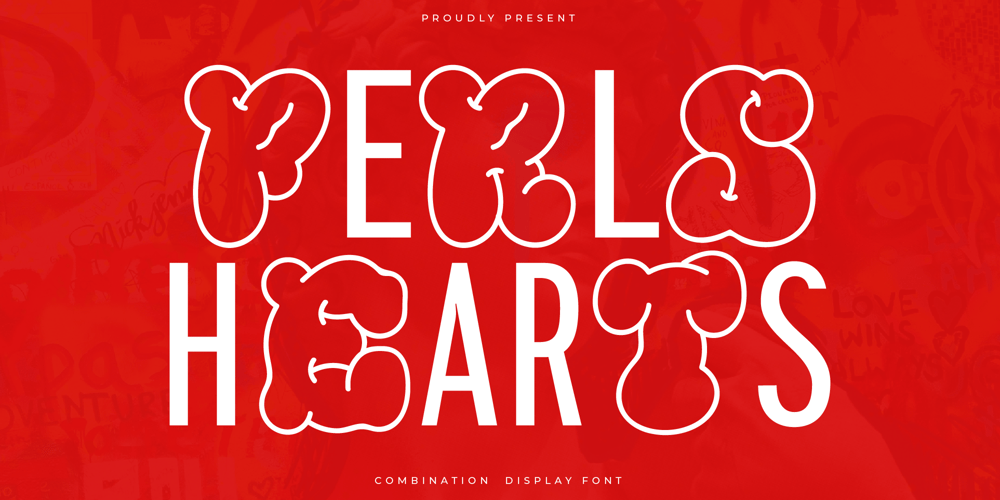
Perls Hearts
Perls Hearts font
Perls Hearts Font Family was designed by Heru Utama Putra and published by Letterena Studios. Perls Hearts contains 1 styles and family package options. Pearl Hearts is a cute and quirky display font. It will add an incredibly joyfultouch to your designs. Add this beautiful display font to each of your creative ideas and notice how it makes them stand out!